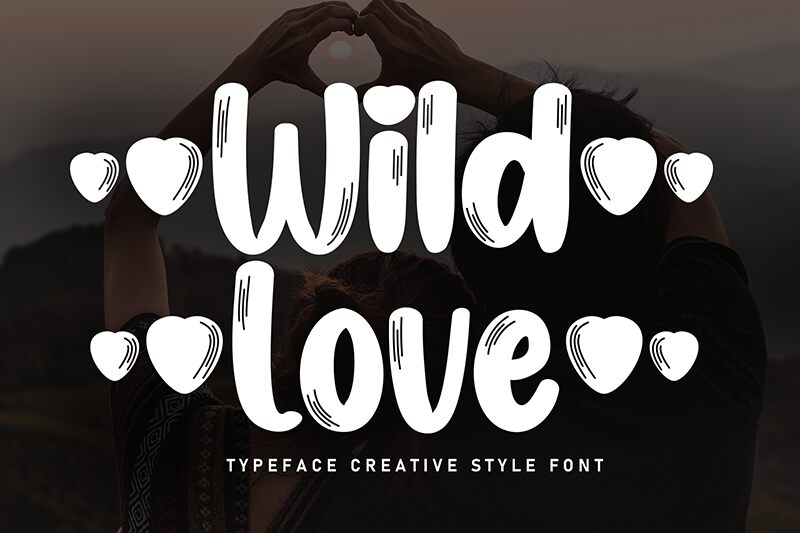
Wild Love
Wild Love font designed by Scratchones is a bold brush display typeface with a modern urban appeal. With an expressive black color, its artistic characters are contemporary and their shapes are decorated with scratches. This handwriting style truly packs communicative strength allowing its use in all types of romantic, creative and stylish projects.
Use this free bold calligraphy font for periodicals, books, magazines, Valentine’s day projects, lovely posters, cards, invitations and much more. Get even more imaginative by including it in commercial items such as t-shirts and mugs where the scratchy letters will surely impress customers.